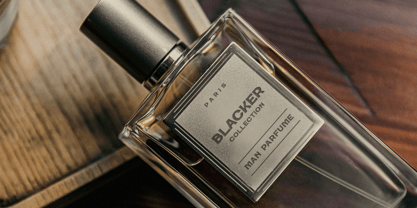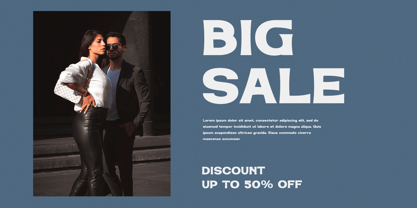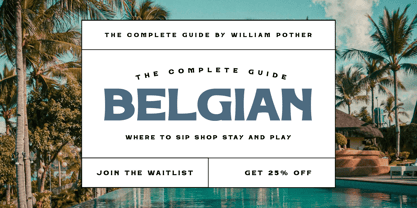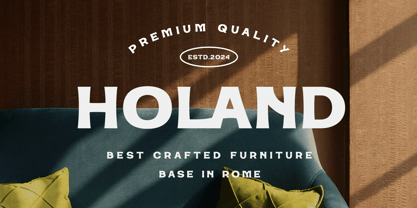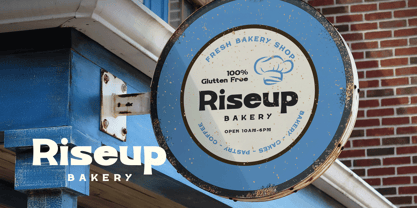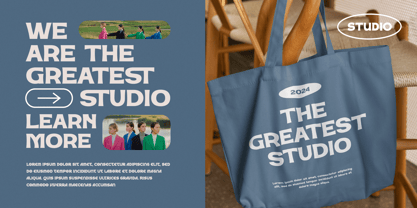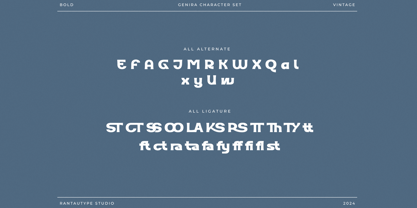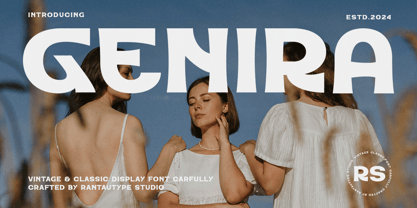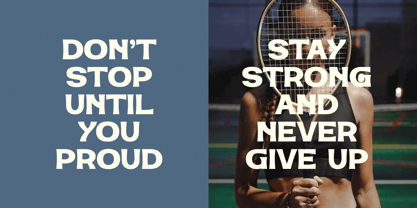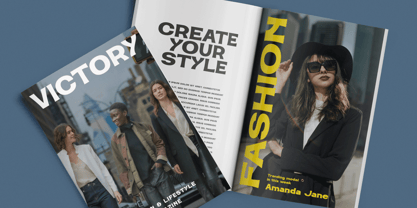
Genira
Genira is classic vintage display font made by rantautype studio. Genira bring retro character into harmony font typography. Genira is a perfectly choice for any creative endeavor, chic, lifestyle design such as logos, advertisements, stationery, branding project, display and magazine, invitation, corporate brand, product design, label, business project and many other project with retro and vintage touch.
• Standart Glyphs
• Numberial and Functional
• Ligature and alternate